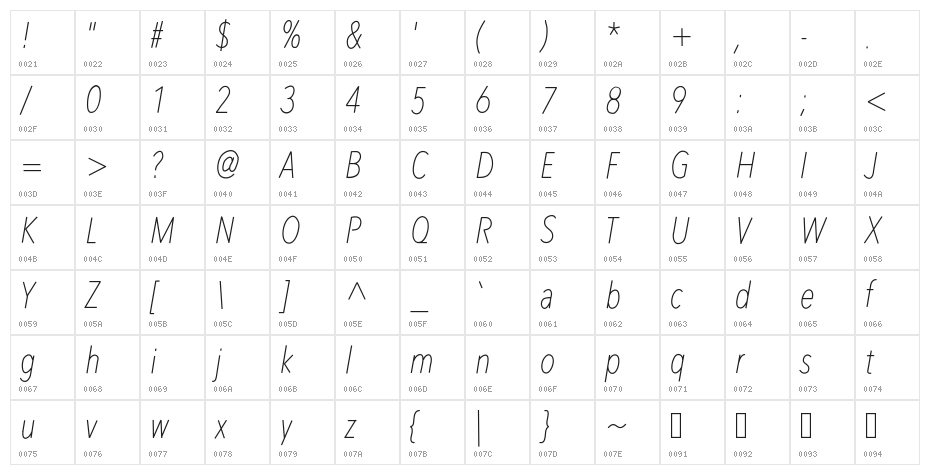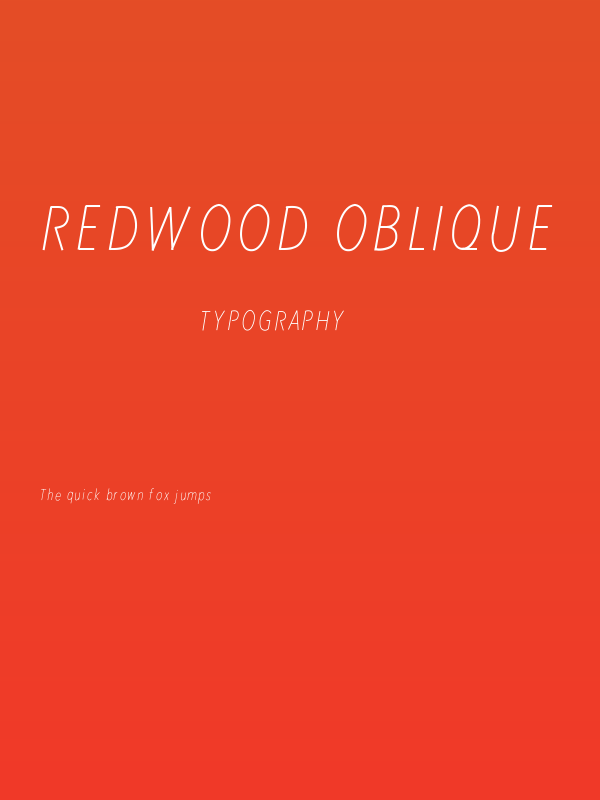
RedWood Oblique Font
RedWood Oblique Description
This font features a sleek and modern design with an oblique style, giving it a dynamic and forward-leaning appearance. The characters are thin and elongated, providing an elegant and sophisticated look. The uppercase and lowercase letters maintain a consistent slant, enhancing the font's cohesive aesthetic. The numerals and special characters are designed with the same attention to detail, ensuring readability and style across all uses. Its clean lines and minimalistic approach make it suitable for contemporary projects that require a touch of elegance and modernity.
| Proposed Projects | Ideal for branding, editorial design, fashion magazines, and modern web design. |